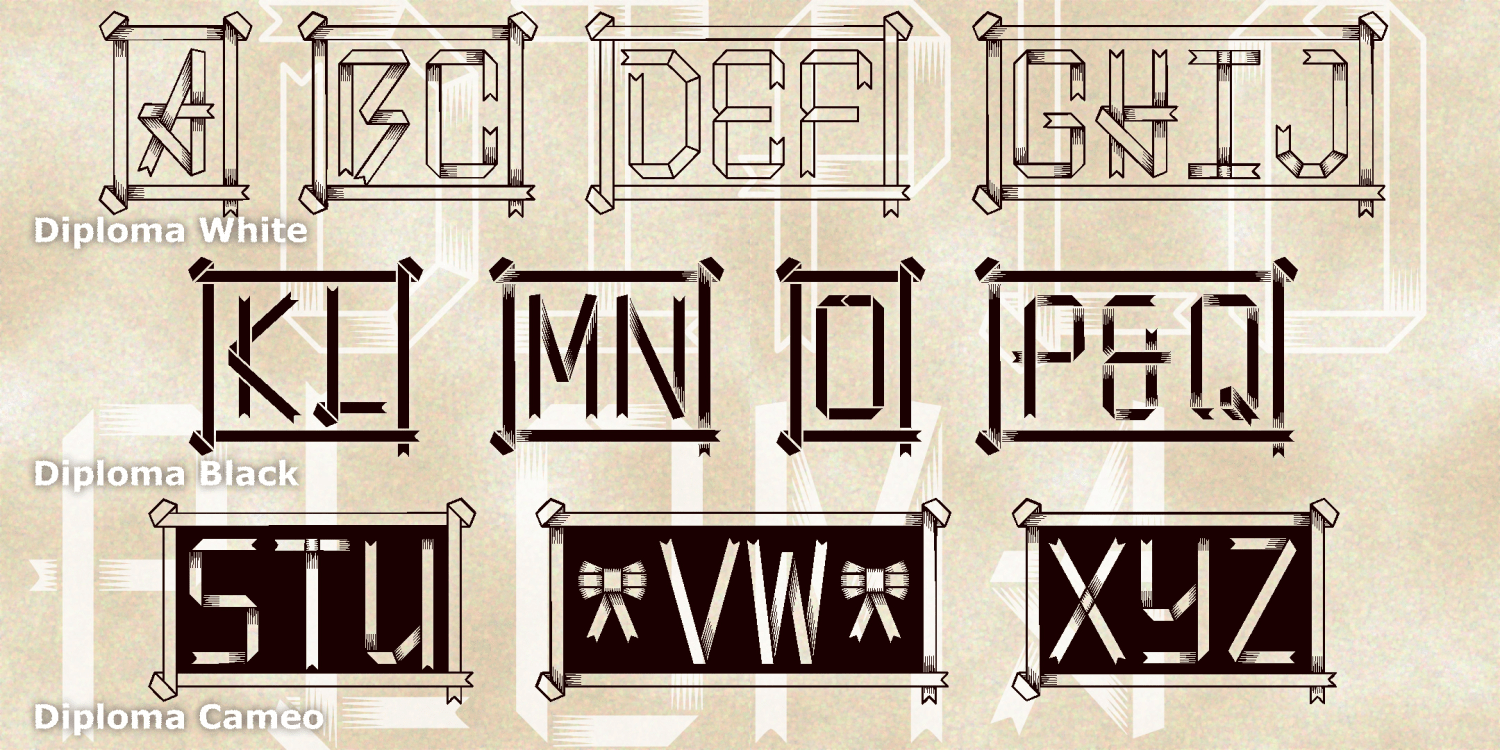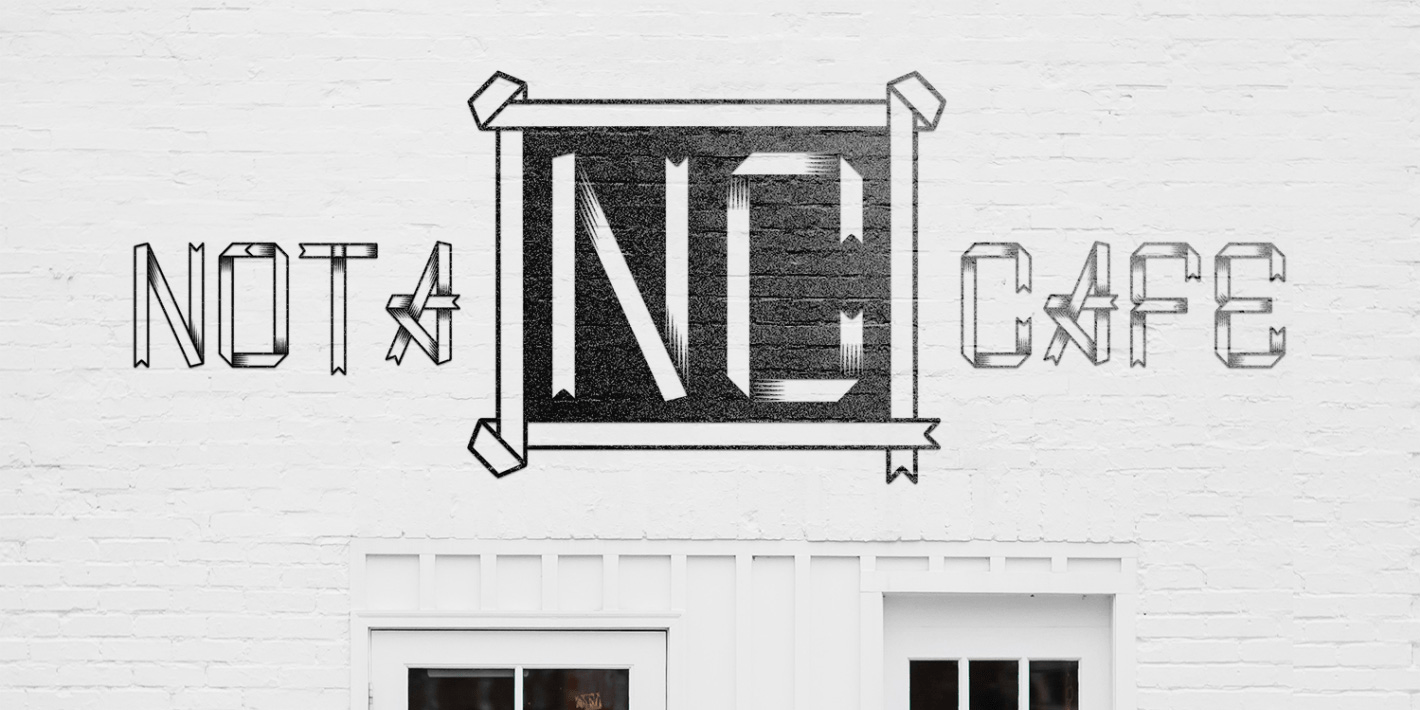
Diploma Monograms
Diploma Monograms are a unique style of letters that looks like folded ribbons. With the simplicity of a bookmark and the formal elegance of an official seal, this set of 3 fonts lets you make distinctive custom monograms of 1-4 letters. The possibilities include White, Black, and Cameo, a striking mix of looks. And each font includes the letters with and without shading, your choice depending on the scale and medium of your project.